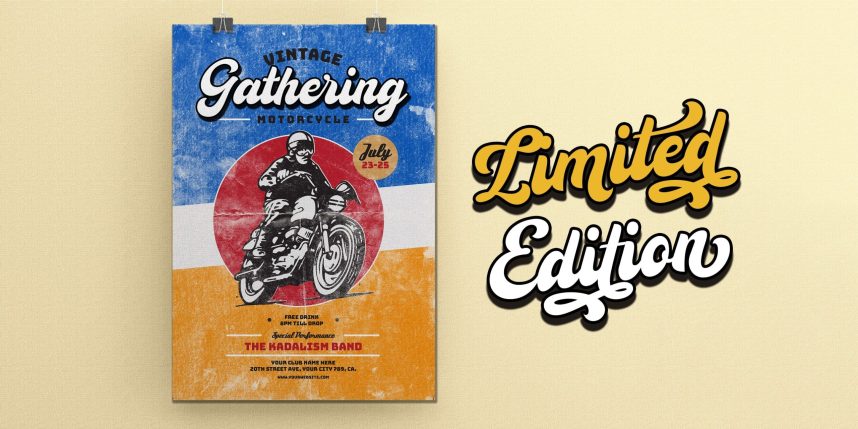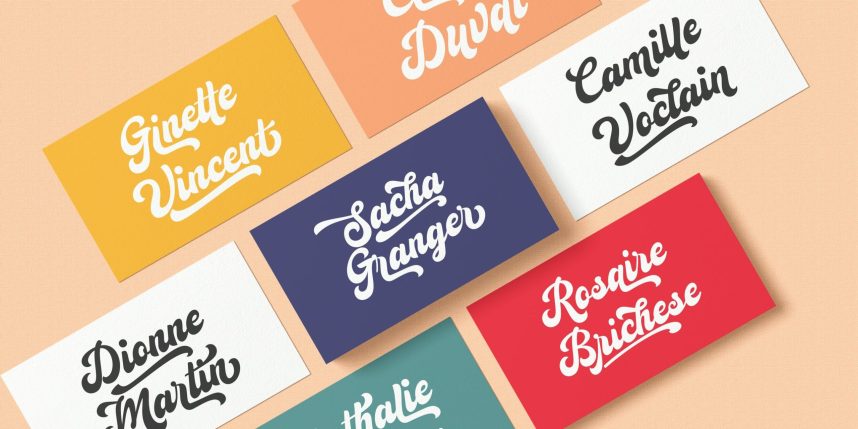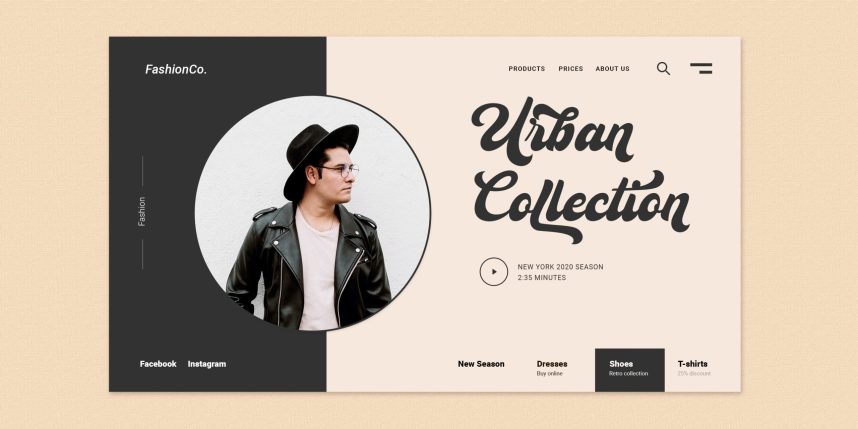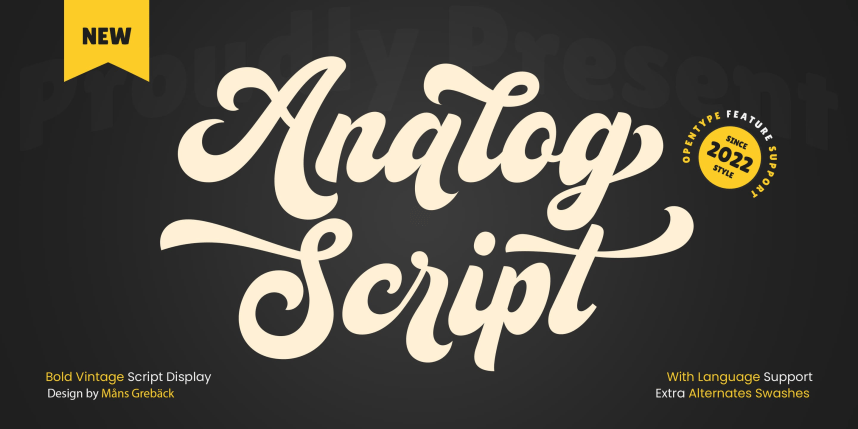
Analog Font
Analog Script Font is a script with vintage look and feel. Use underscore _ anywhere in a word to make a swash under the word. Example: Wonder_woman Use multiple underscores for different swashes. Example: Love______letter Write # or ¤ after any letter to make a swash version. (Download required.) The font is built with advanced OpenType functionality and has a guaranteed top-notch quality, containing stylistic and contextual alternates, ligatures and more features; all to give you full control and customizability. It has extensive lingual support, covering all Latin-based languages, from Northern Europe to South Africa, from America to South-East Asia. It contains all characters and symbols you’ll ever need, including all punctuation and numbers.